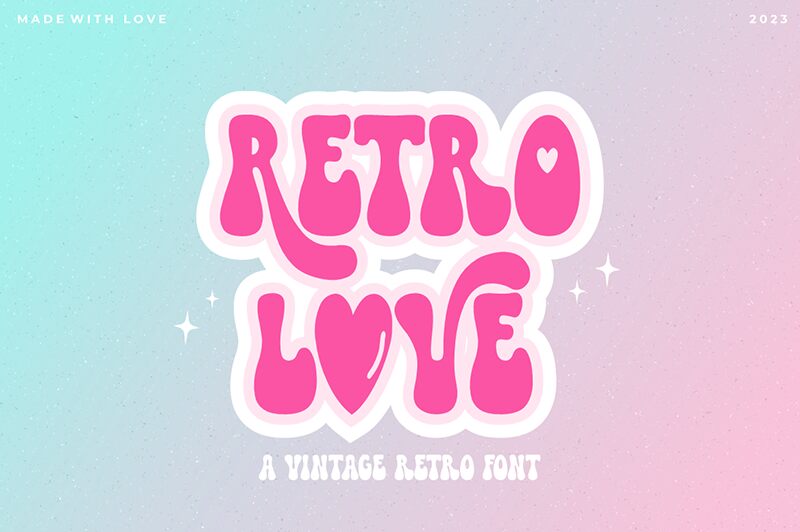
Retro Love font family is a two-font collection designed by ReyreyBlue. Groovy, retro-inspired, vibrant, and whimsical are some words that describe this charming free font family. Bubbly, decorative, and expressive, it combines a nostalgic and lively feeling all at once in a way that leaves an impactful mark on readers and viewers almost immediately. Friendly, casual, and youthful, it is a type that introduced itself with a vintage appeal in mind.
Readability is what makes this font suitable for small pieces of text, whether they’re paragraphs or words. Set retro lyrics using Retro Love or use them in your music album design related to grooviness, friendship, or love. Write descriptions of songs, titles of books, or quotations, or go for a promotional use by mentioning online offers and eye-catchy wordings.